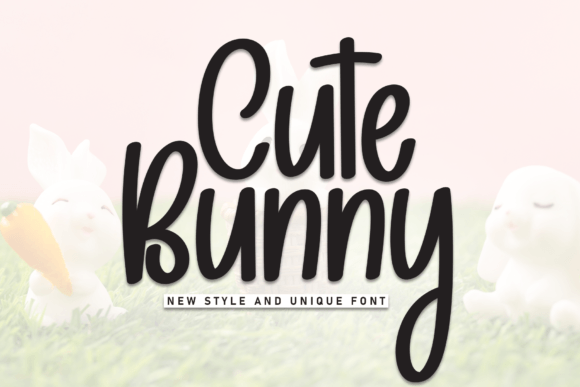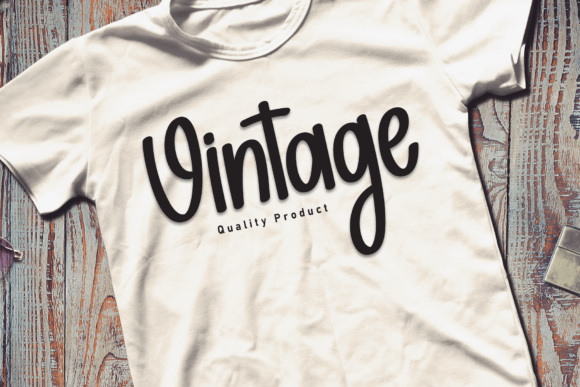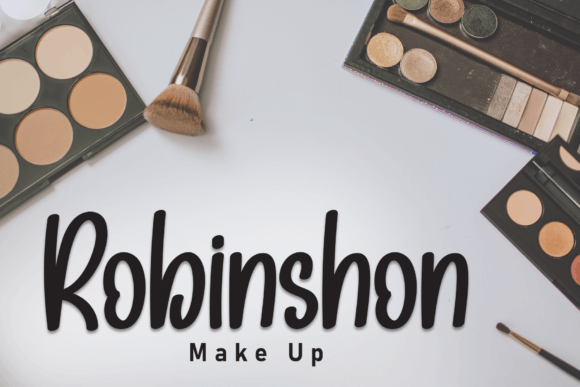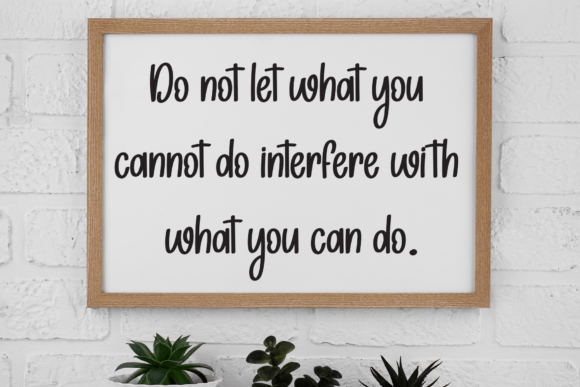
Cute Bunny Font
About the Cute Bunny Font
Add a touch of class to your work with the Cute Bunny Font, a truly exceptional typeface. Cute Bunny is a sweet and friendly handwritten font. Cute and fun, this font is ideal for writing wedding invitations, cards, or any other design that might need a fun touch!
Cute Bunny’s playful, handwritten style shines in projects requiring a friendly and approachable feel. It’s perfect for branding related to children’s products, crafting, or whimsical businesses. Use it for logos, short headlines, social media graphics, and packaging. However, avoid using it for large bodies of text or UI elements; its informal nature makes it less legible for extended reading.
Pair Cute Bunny with a clean sans-serif like Lato for a balanced contrast, or a more geometric sans-serif such as Montserrat for a modern feel. For a touch of elegance, consider pairing it with a delicate serif font like Playfair Display. Avoid pairing it with other script fonts, as this can lead to visual clutter and reduce readability.
The overall personality is undeniably cheerful and light-hearted, making it unsuitable for projects requiring sophistication or seriousness. Its charming aesthetic is best utilized in contexts where approachability and fun are key design elements.
Cute Bunny Font Usage Examples
Cute Bunny Font Example